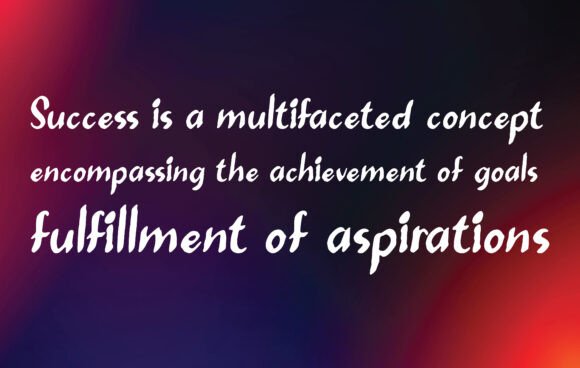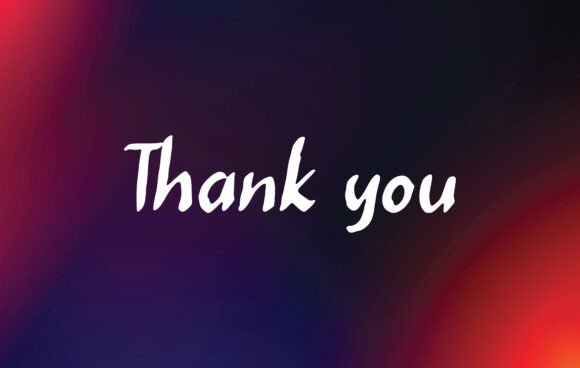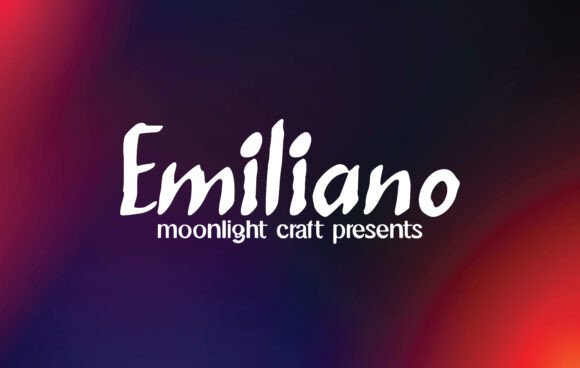
Discover the Beauty of Emiliano Font: Elevate Your Designs with this Lovely Handwritten Font
Are you a designer or crafter looking for a font that can take your creative ideas to the next level? Look no further than Emiliano Font, a stunning handwritten font that is sure to capture the attention of your audience. With its unique and elegant style, Emiliano Font is the perfect choice for creating eye-catching logos, branding, and quotes that will leave a lasting impression.
The Characteristics of Emiliano Font
Emiliano Font is a beautifully crafted handwritten font that boasts a range of characteristics that make it stand out from the crowd. Its flowing lines and curves give it a sense of elegance and sophistication, making it perfect for designs that require a touch of class. The font is highly legible, even at small sizes, making it versatile and easy to use in a variety of applications.
The Benefits of Using Emiliano Font
So why choose Emiliano Font for your designs? Here are just a few benefits of using this lovely handwritten font:
• Elegance and Sophistication: Emiliano Font adds a touch of elegance and sophistication to any design, making it perfect for high-end branding and luxury products.
• Versatility: The font is highly versatile and can be used in a range of applications, from logos and branding to quotes and social media graphics.
• Attention-Grabbing: Emiliano Font is designed to grab attention and make a lasting impression, making it perfect for designs that need to stand out in a crowded marketplace.
• Easy to Read: The font is highly legible, even at small sizes, making it easy to read and understand.
How to Use Emiliano Font in Your Designs
Using Emiliano Font in your designs is easy. Here are a few tips to get you started:
• Pair it with Other Fonts: Emiliano Font works well when paired with other fonts, such as sans-serif fonts like Arial or Helvetica.
• Use it for Headings and Titles: Emiliano Font is perfect for headings and titles, where its elegance and sophistication can really shine.
• Experiment with Colors: Emiliano Font looks great in a range of colors, from bold and bright to soft and pastel.
Examples of Emiliano Font in Action
Emiliano Font is a versatile font that can be used in a range of applications. Here are a few examples of how it can be used in action:
• Logo Design: Emiliano Font is perfect for creating eye-catching logos that make a lasting impression.
• Branding: The font is ideal for branding applications, such as business cards, letterheads, and packaging.
• Quotes and Social Media Graphics: Emiliano Font is great for creating inspirational quotes and social media graphics that grab attention.
In conclusion, Emiliano Font is a beautiful handwritten font that is sure to take your creative ideas to the next level. With its elegance, sophistication, and versatility, it’s the perfect choice for designers and crafters looking to create eye-catching logos, branding, and quotes. So why not give Emiliano Font a try today and see the difference it can make in your designs?
Whether you’re a seasoned designer or just starting out, Emiliano Font is a great addition to your font library. Its unique style and characteristics make it a valuable resource for any design project, and its ease of use makes it accessible to designers of all skill levels.